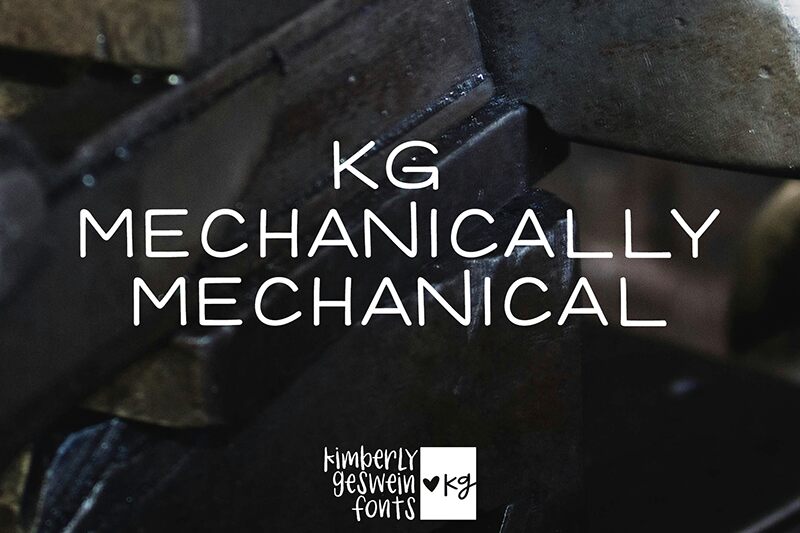
KG Mechanically Mechanical Norm
KG Mechanically Mechanical is an expanded handwriting typeface by Kimberly Geswein that will make your words jump right out of the screen (or the printed page!). The font includes all the characters you need for all your designs from numbers and punctuation to uppercase letters and special characters.
Perfect for your headlines, book titles, branding materials and poster art.